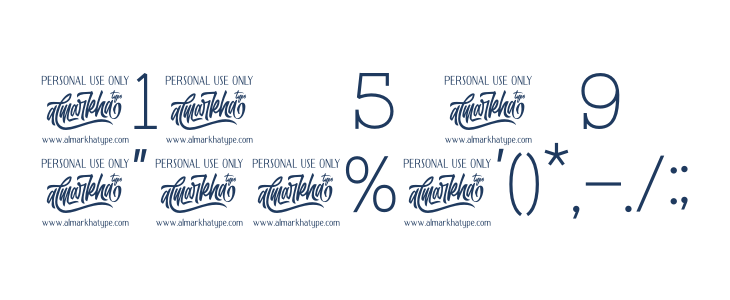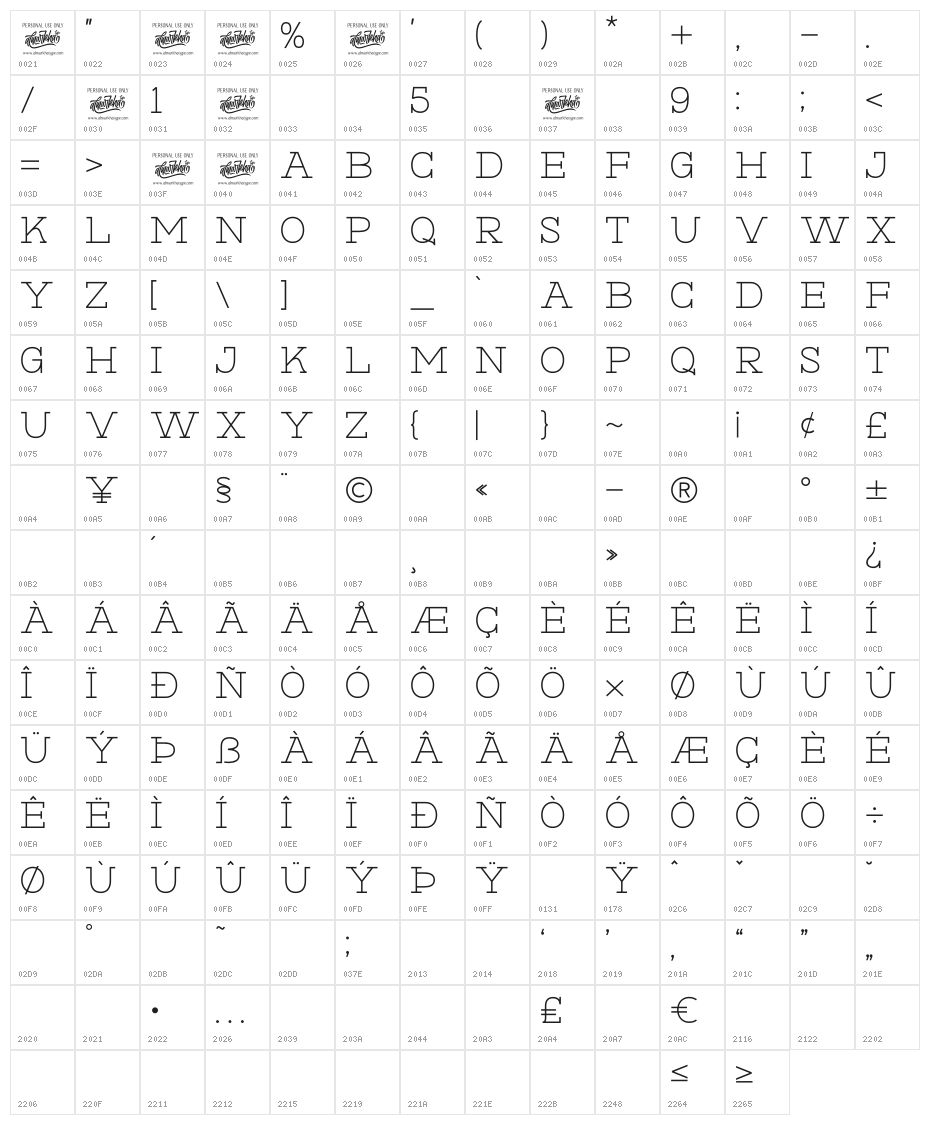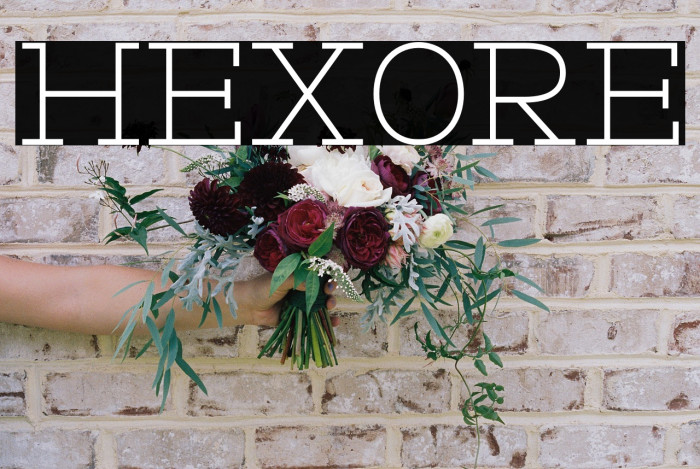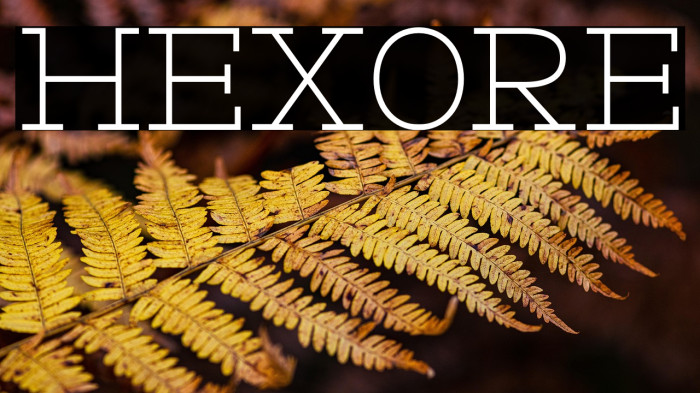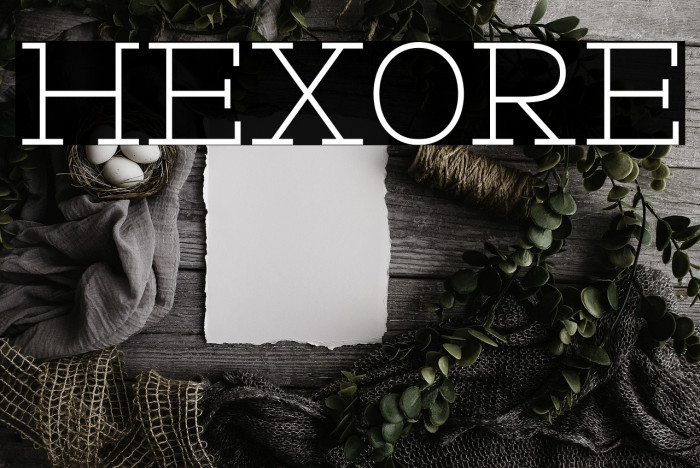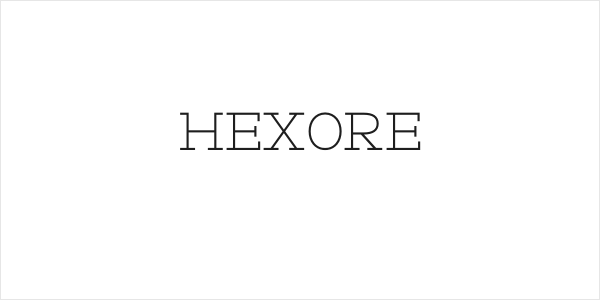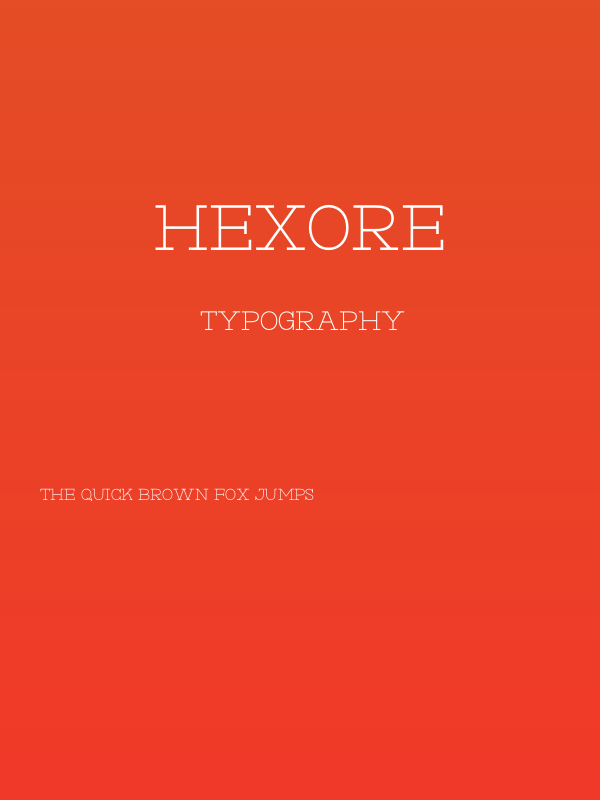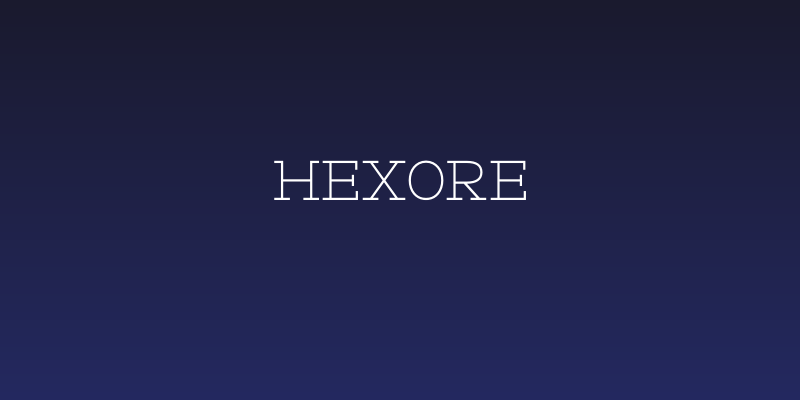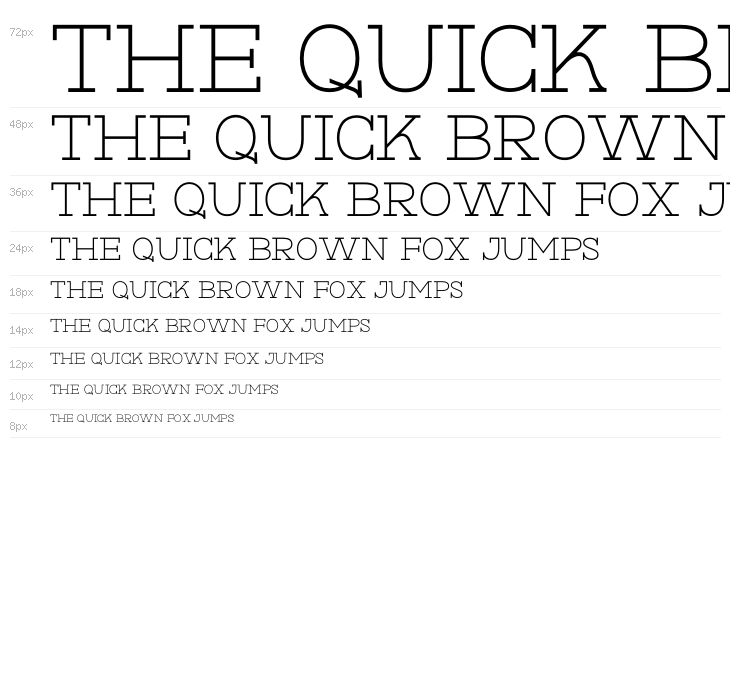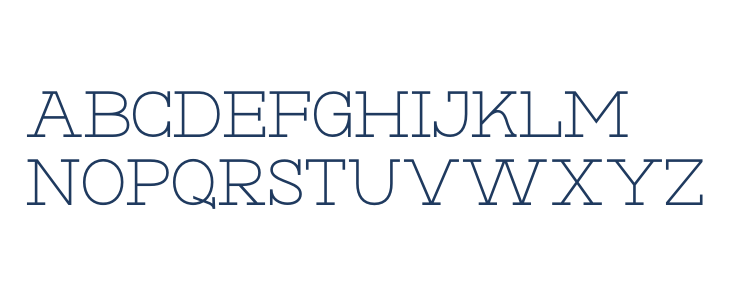
Hexore Font
Hexore Description
This font features a clean and modern design with a geometric structure. The uppercase letters are uniform in height, with a slight variation in width that adds a touch of elegance. The lowercase letters maintain a consistent style, complementing the uppercase with their simplicity and readability. The numerals are straightforward and align well with the overall design, making them suitable for various applications. Special characters are included, offering versatility for different contexts. The font's clarity and precision make it ideal for both digital and print media.
Use CaseHeadlines, Body text, Logos
Proposed ProjectsIdeal for branding, editorial design, websites, and corporate materials.